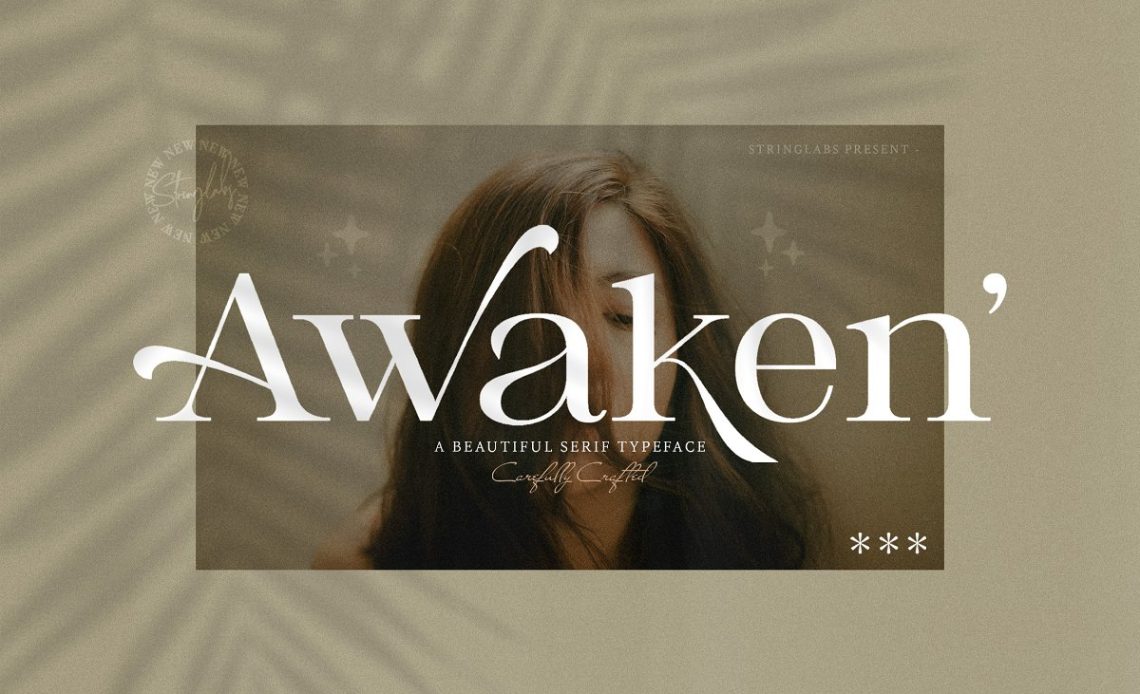
Are you tired of using the same old fonts for your creative projects? Look no further than Awaken - Casual Serif Font, created by the talented Virgiawan Listanto. This authentic and neat serif font is the perfect addition to any designer's toolbox.
Awaken is a versatile font that can be used for a wide range of projects. Its unique and eye-catching style will make your work stand out, whether you're creating book titles, posters, logos, or any other design project. With Awaken, you can easily add a touch of elegance and sophistication to your designs.
One of the standout features of Awaken is its extensive set of characters. It includes ligatures, alternates, uppercase and lowercase letters, numbering and punctuations, and multilingual support. This means you can use Awaken for projects in a variety of languages and settings, and still achieve a consistent and professional look.
In summary, if you're looking for a high-quality serif font that is versatile, easy to use, and will make your designs stand out, look no further than Awaken - Casual Serif Font. With its unique style and extensive set of characters, Awaken is the perfect addition to any designer's toolkit. Download Awaken today and take your designs to the next level!